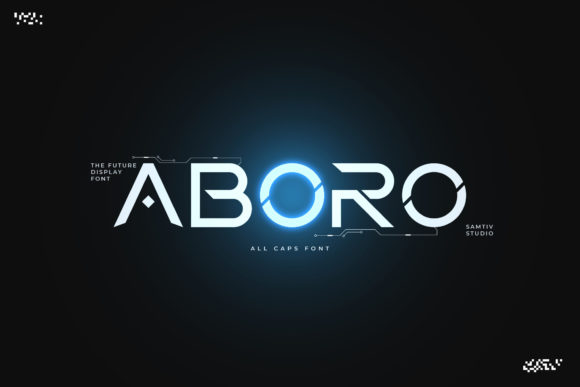
The Aboro Font: A Futuristic Design Marvel
Have you ever been in the middle of a design project, and suddenly, you’re stuck on finding the perfect font? I recall a recent experience where I was working on a futuristic branding project, and my client specifically asked for a font that screamed “space age” and “cyberpunk.” After hours of scouring the internet, I stumbled upon the Aboro font, and it was love at first sight! 🚀
A First Impression: What Makes Aboro Stand Out
Aboro is a futuristic design and space display font that embodies the essence of modernity and versatility. Its clean lines, sleek curves, and futuristic vibe make it an ideal choice for displays, branding, or headlines. This font is perfect for designers, crafters, and creative hobbyists looking to add a touch of sci-fi, cyberpunk, or robotic themes to their creations.
An Honest Review: The Good, the Bad, and the Quirks
What I Love About Aboro ✨
- ✅ Clean and Modern Design: Aboro’s sleek design makes it perfect for futuristic and tech-related projects.
- ✅ Versatility: This font can be used for a wide range of projects, from branding and advertising to headlines and displays.
- ✅ Ease of Use: Aboro is easy to read and works well in various sizes and resolutions.
- ✅ OpenType Features: The font comes with a range of OpenType features, including stylistic alternates and glyphs, which can be used to add an extra layer of creativity to your designs.
- ⚠️ Limited Suitability for Body Text: Aboro is primarily designed for display purposes and may not be the best choice for body text due to its bold and futuristic style.
- ⚠️ Some Characters May Appear Similar: In certain sizes or resolutions, some characters may appear similar, which can make reading more challenging.
Aboro was designed with the goal of creating a futuristic font that embodies the essence of modernity and technology. The designer drew inspiration from various sources, including sci-fi movies, video games, and futuristic architecture. The result is a font that feels timeless and versatile, making it perfect for a wide range of creative projects.
Q: What is Aboro font best used for?
A: Aboro is best used for displays, branding, or headlines, particularly for projects that require a futuristic, sci-fi, or cyberpunk theme.
Q: Does Aboro come with OpenType features?
A: Yes, Aboro comes with a range of OpenType features, including stylistic alternates and glyphs, which can be used to add an extra layer of creativity to your designs.